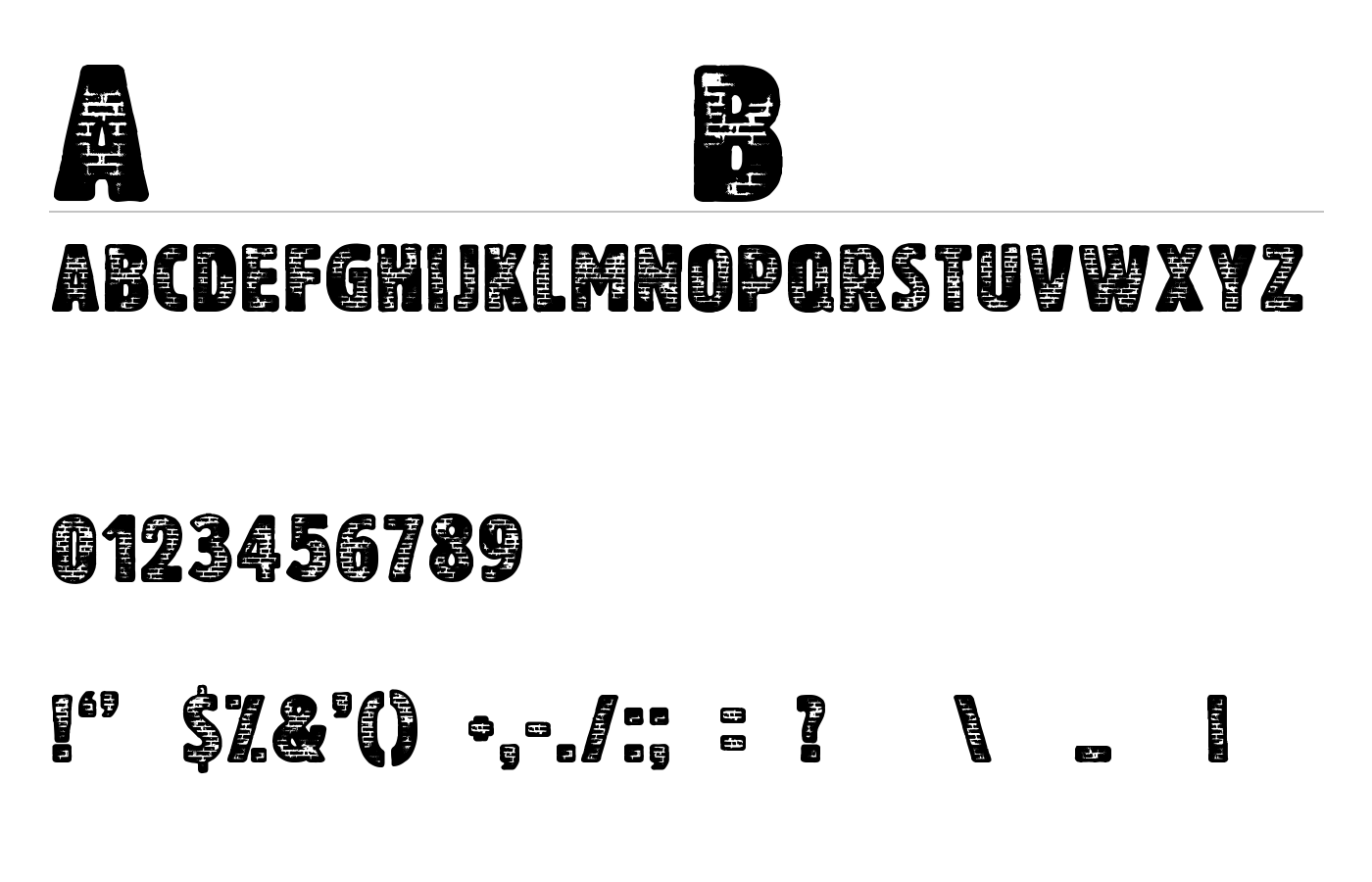
Another Brick Font is a bold, condensed sans serif with a textured, distressed look that mimics the rough pattern of bricks. Its strong, blocky letterforms create a rugged and industrial vibe, making it ideal for attention-grabbing headlines, posters, and branding that want to convey a tough, urban, or vintage feel. This font works best in display settings where its unique texture can stand out and add character.
Another Brick Font
About Another Brick Font